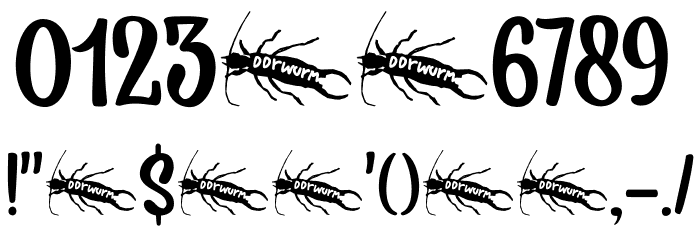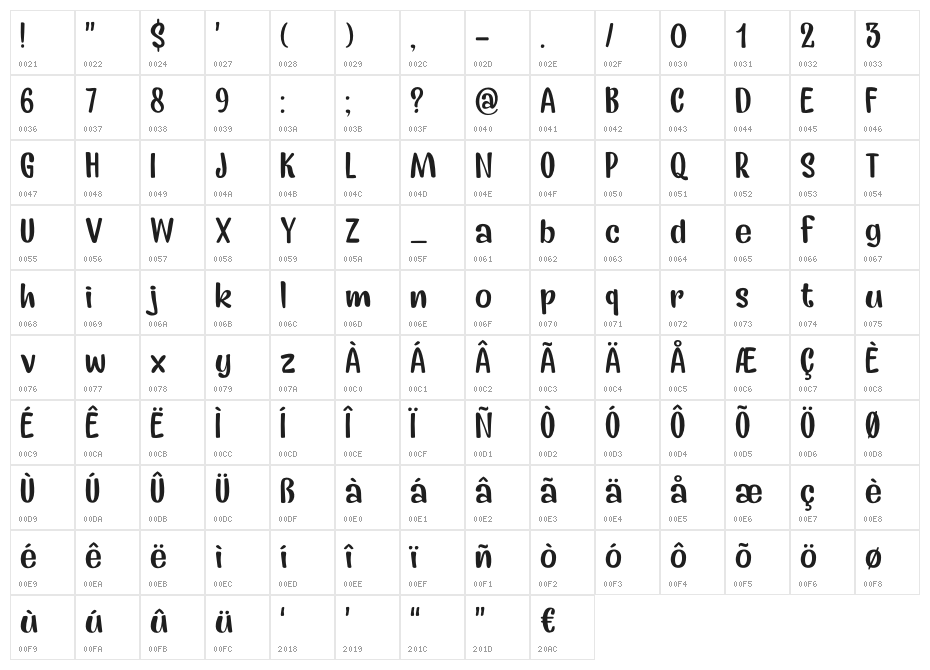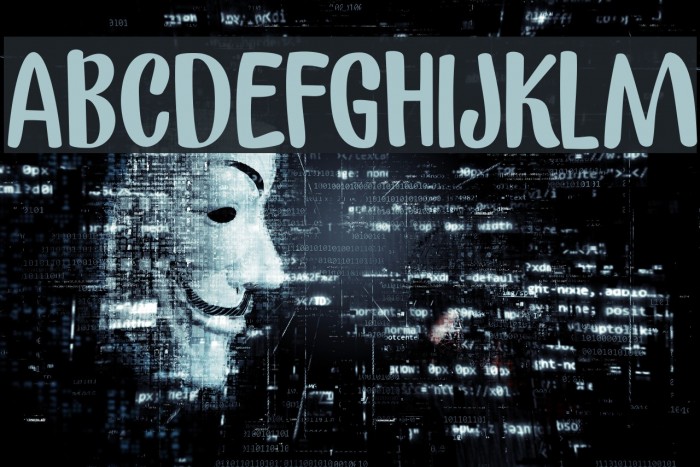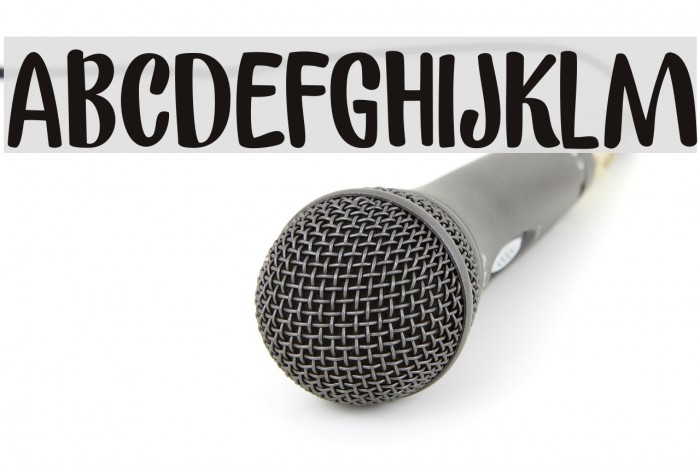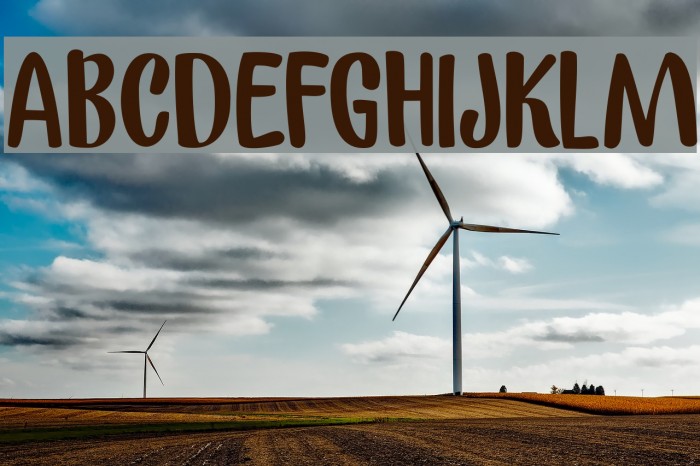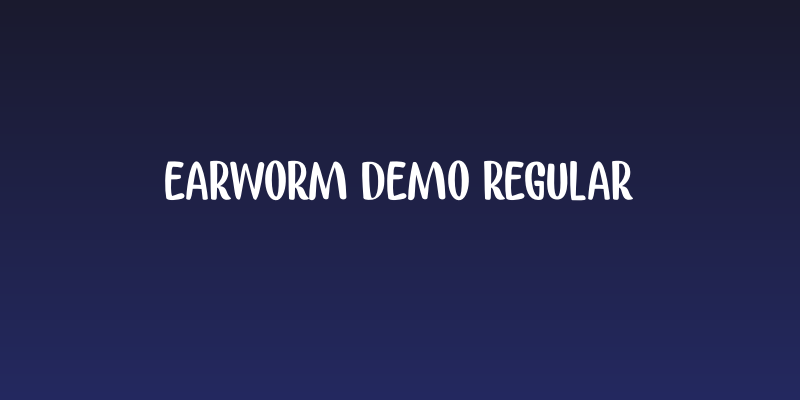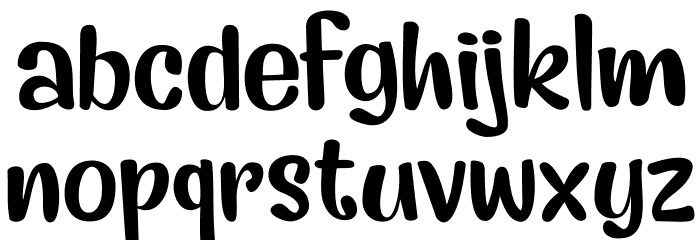
Earworm DEMO Regular Font
Earworm DEMO Regular Description
This font features a playful and bold design with a handwritten style that exudes a sense of fun and creativity. The characters are rounded and slightly irregular, giving them a casual and approachable feel. The uppercase and lowercase letters maintain a consistent style, with a slight slant that adds to the dynamic appearance. The numbers and special characters are equally bold and maintain the same playful aesthetic. This font is perfect for projects that require a touch of whimsy and personality, making it ideal for creative branding, children's books, and playful posters.
| Use Case | Logos, Posters, Invitations |
| Proposed Projects | Ideal for children's books, creative branding, playful posters, and casual invitations. |